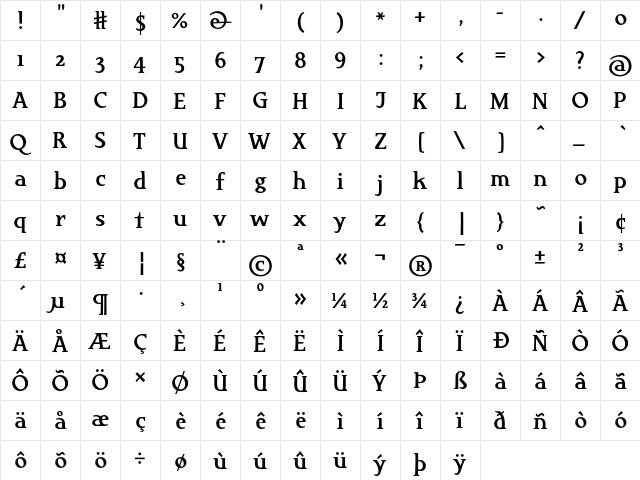
Cajoun LT Std Regular
| Foundry | Linotype GmbH |
| Designer | Hans-Jn Ellenberger |
Design Context for Cajoun LT Std Typeface
Cajoun LT Std offers clean, dependable letterforms without strong stylistic allegiance, making it a practical choice for designers who need flexibility. Its slender proportions lend an understated elegance to any composition.